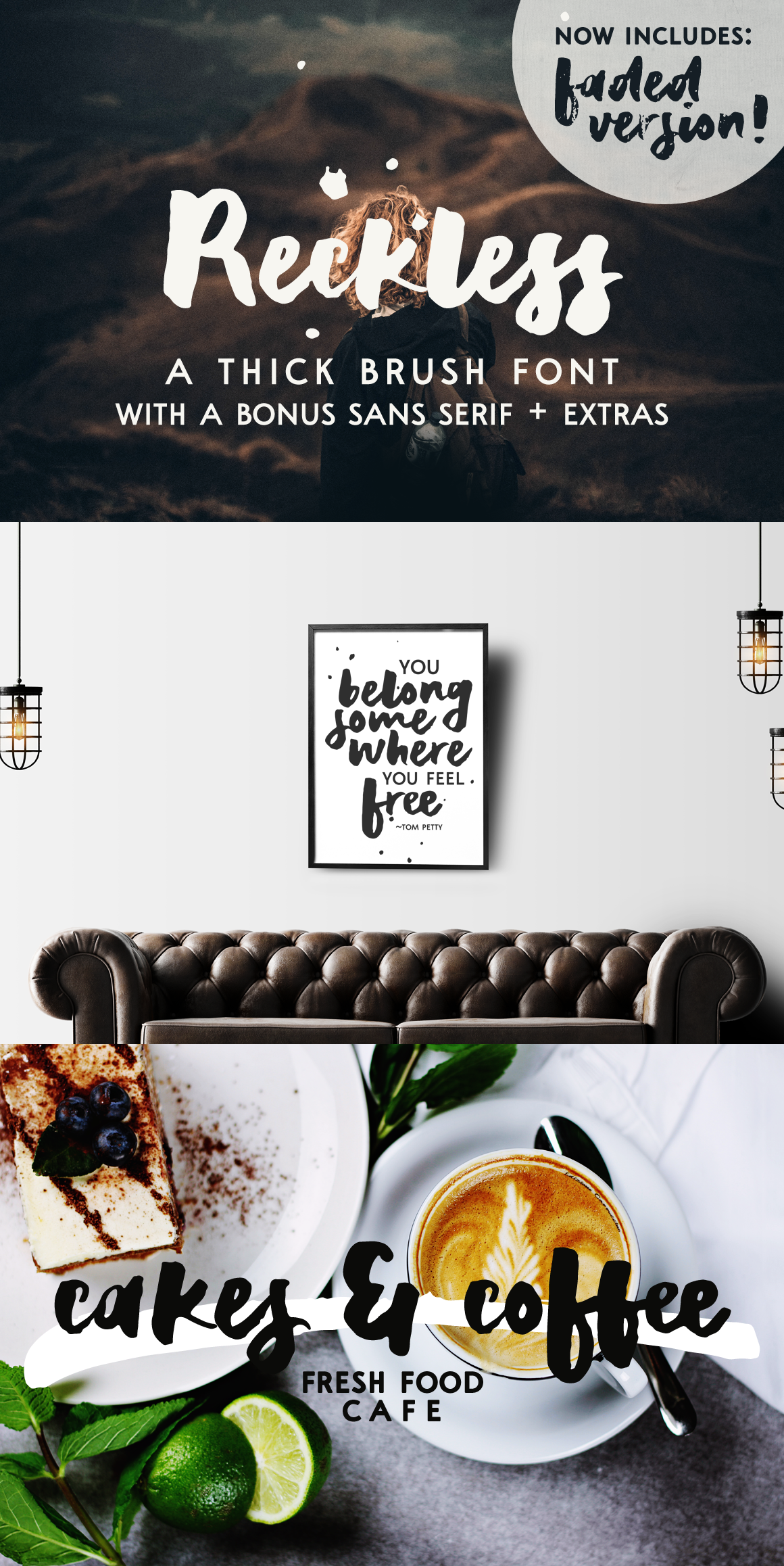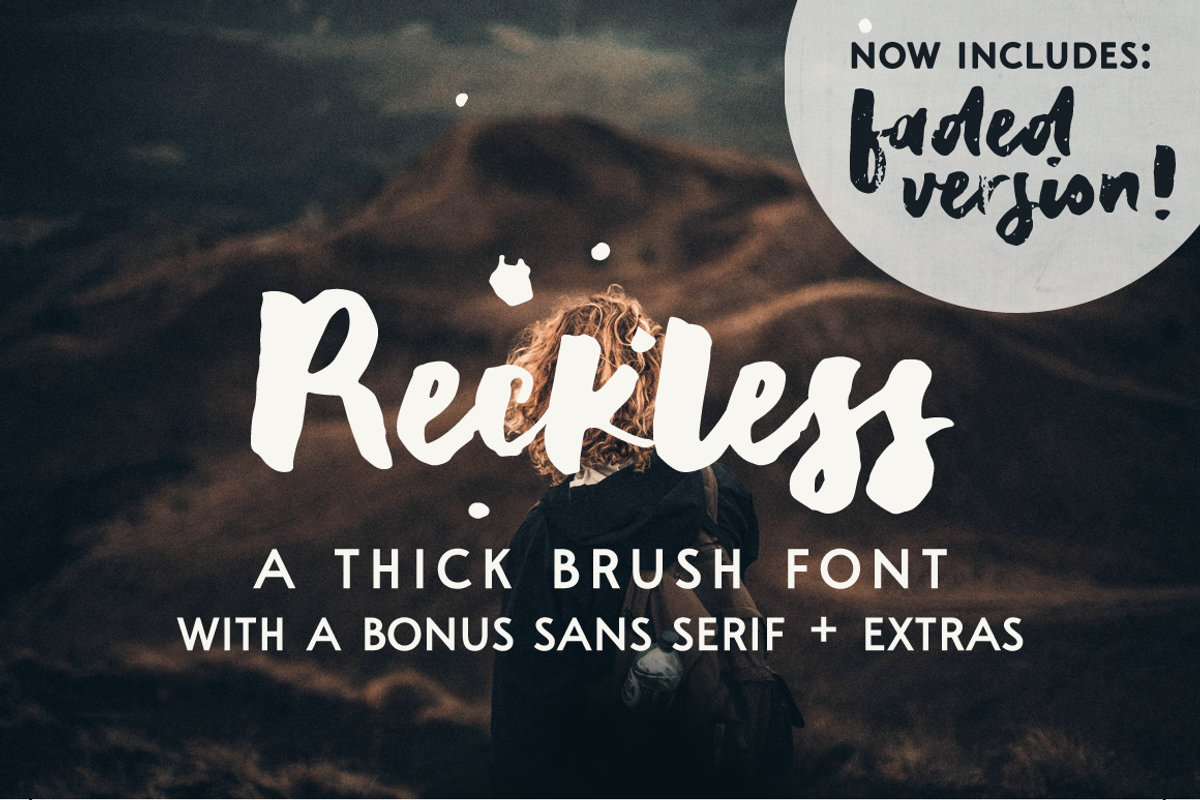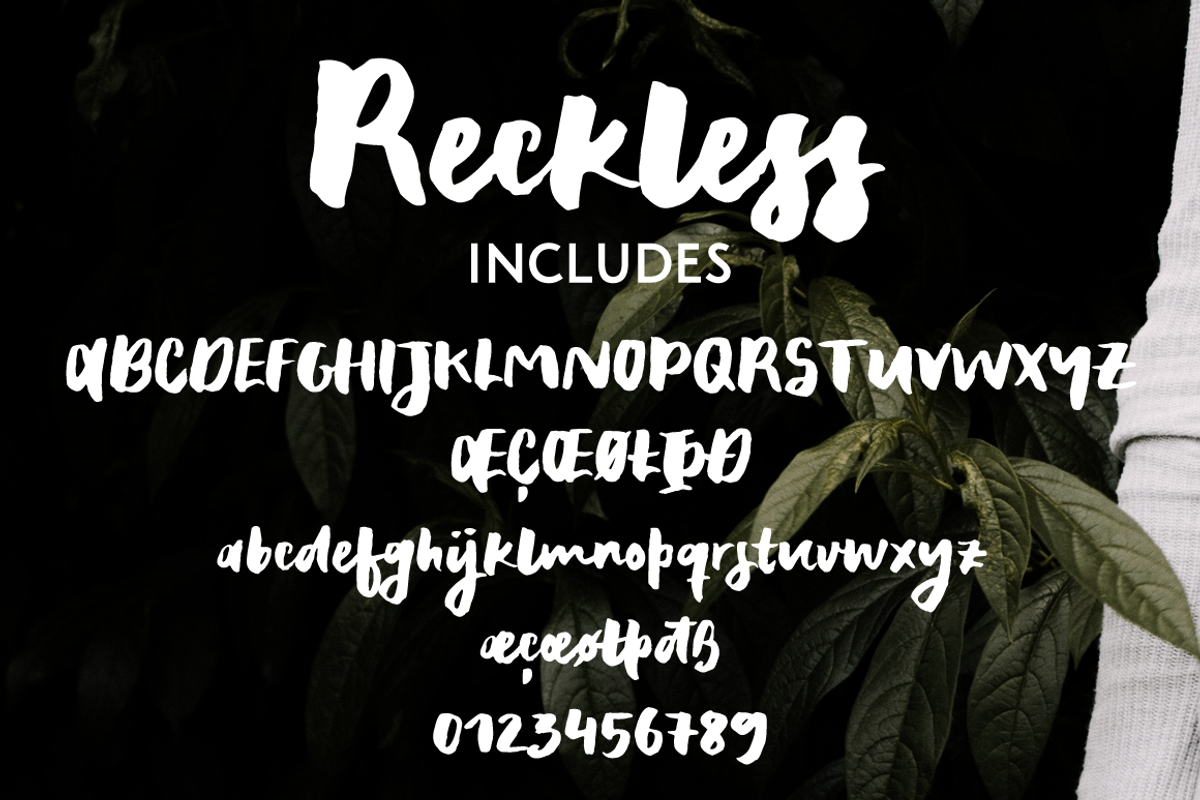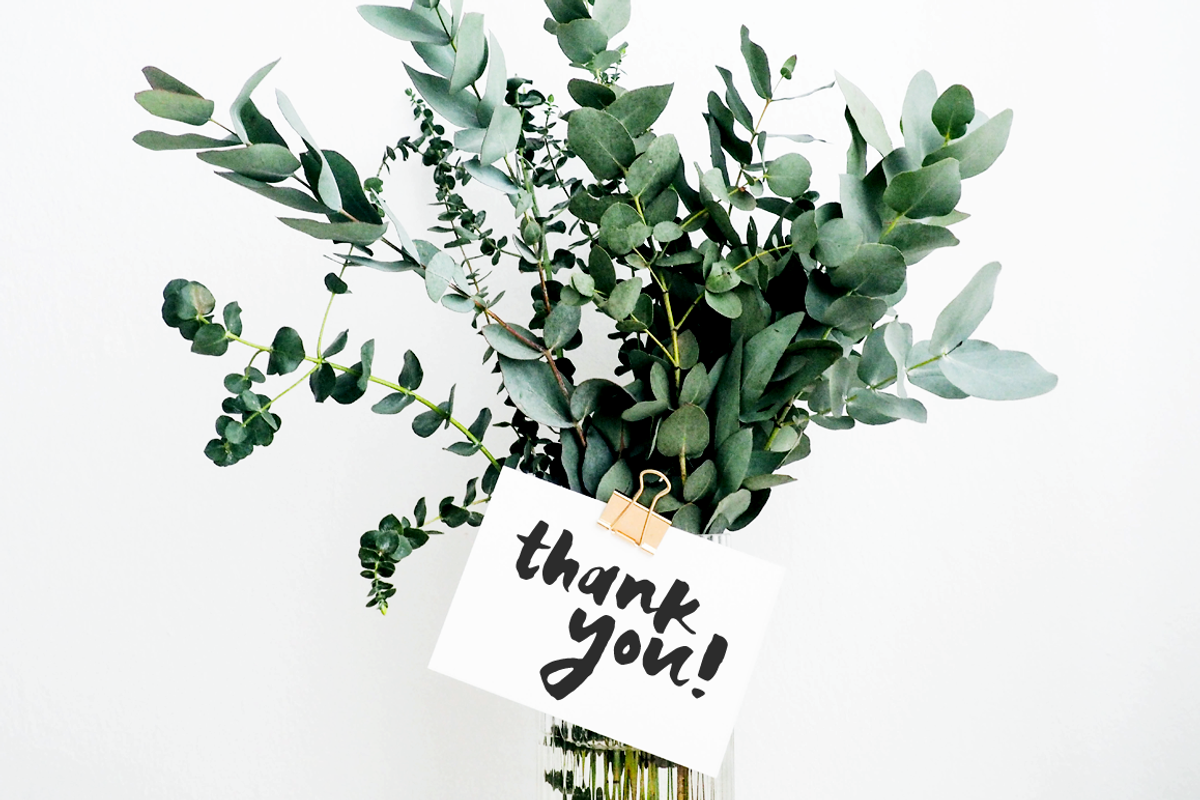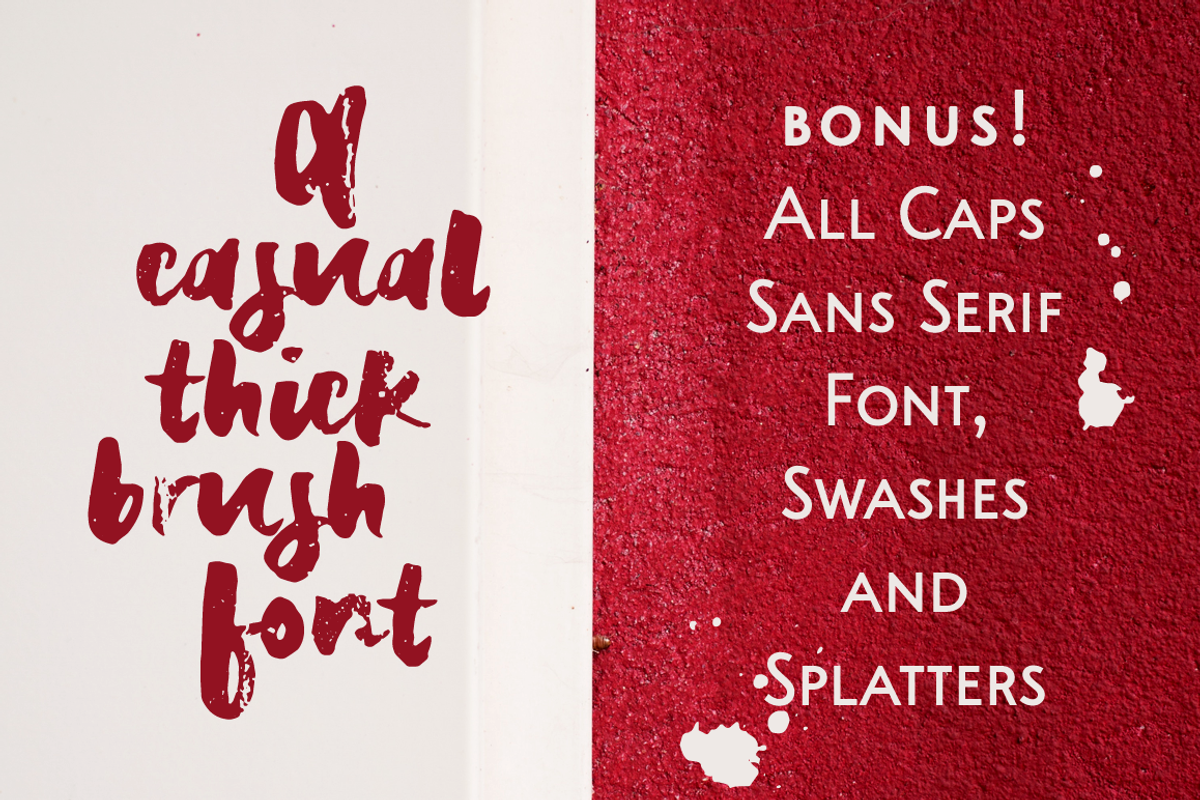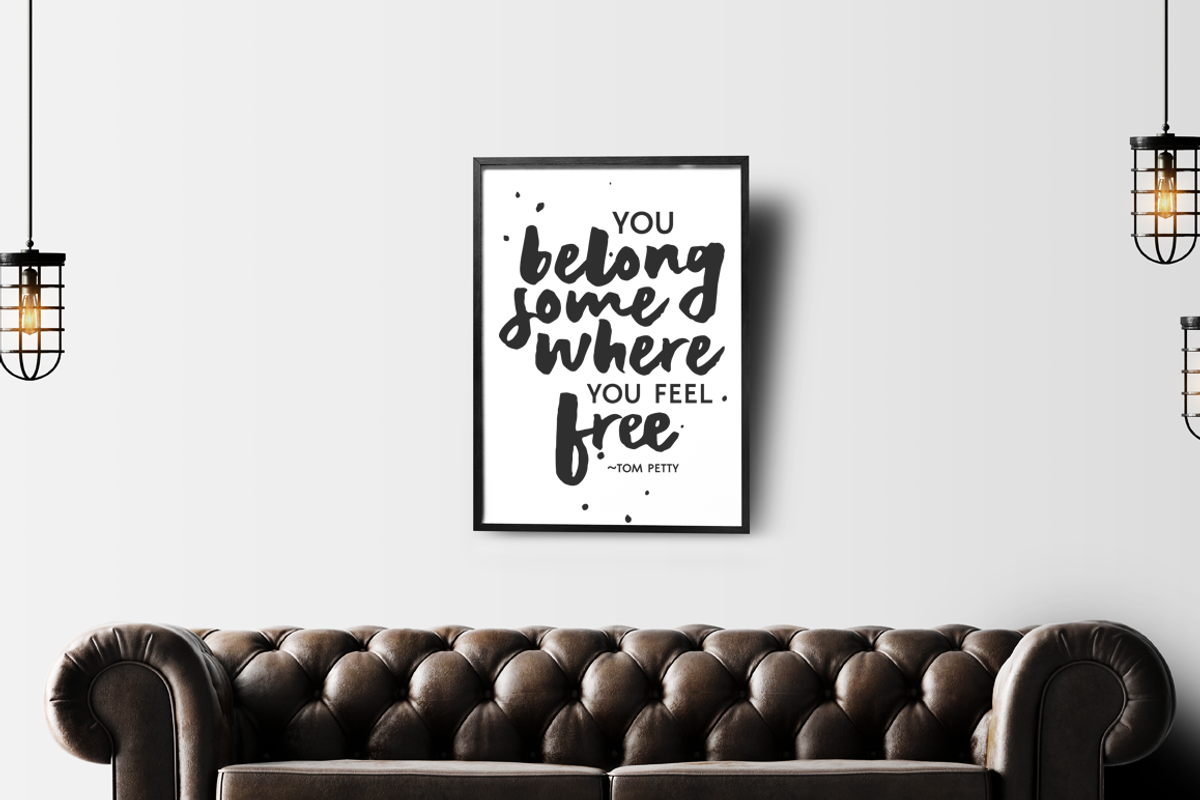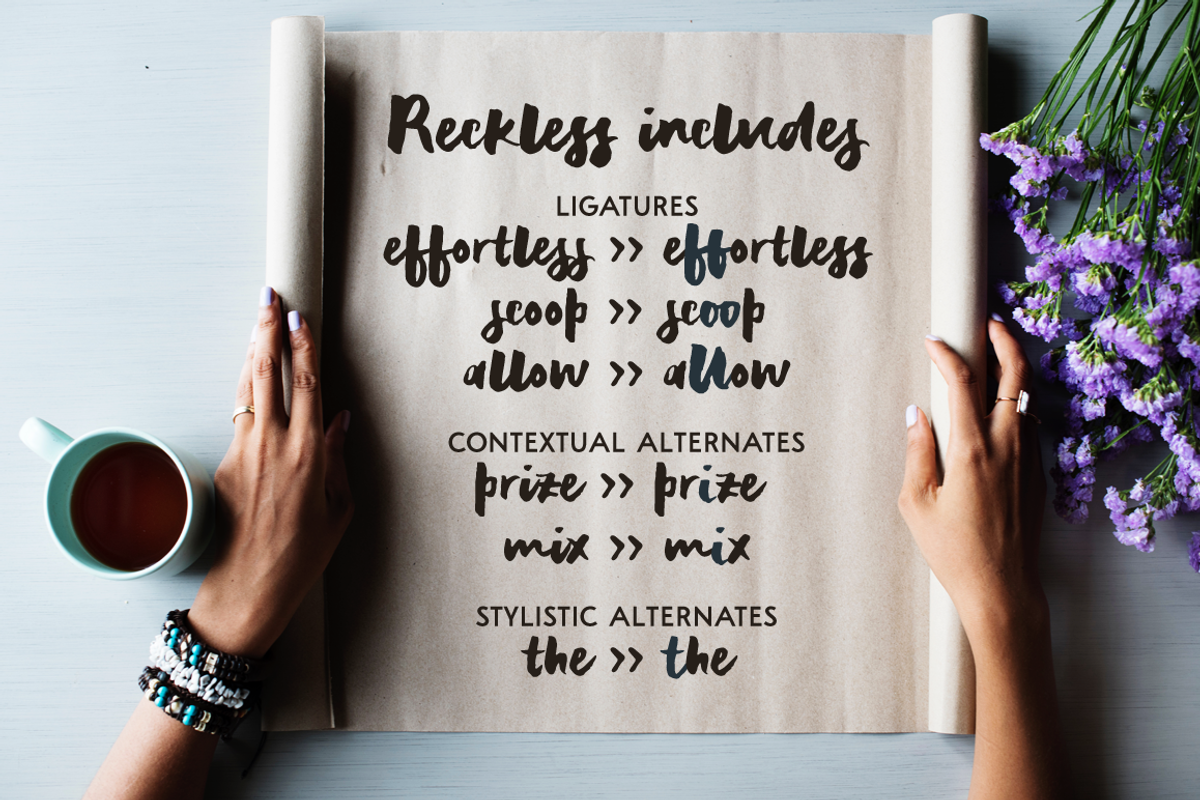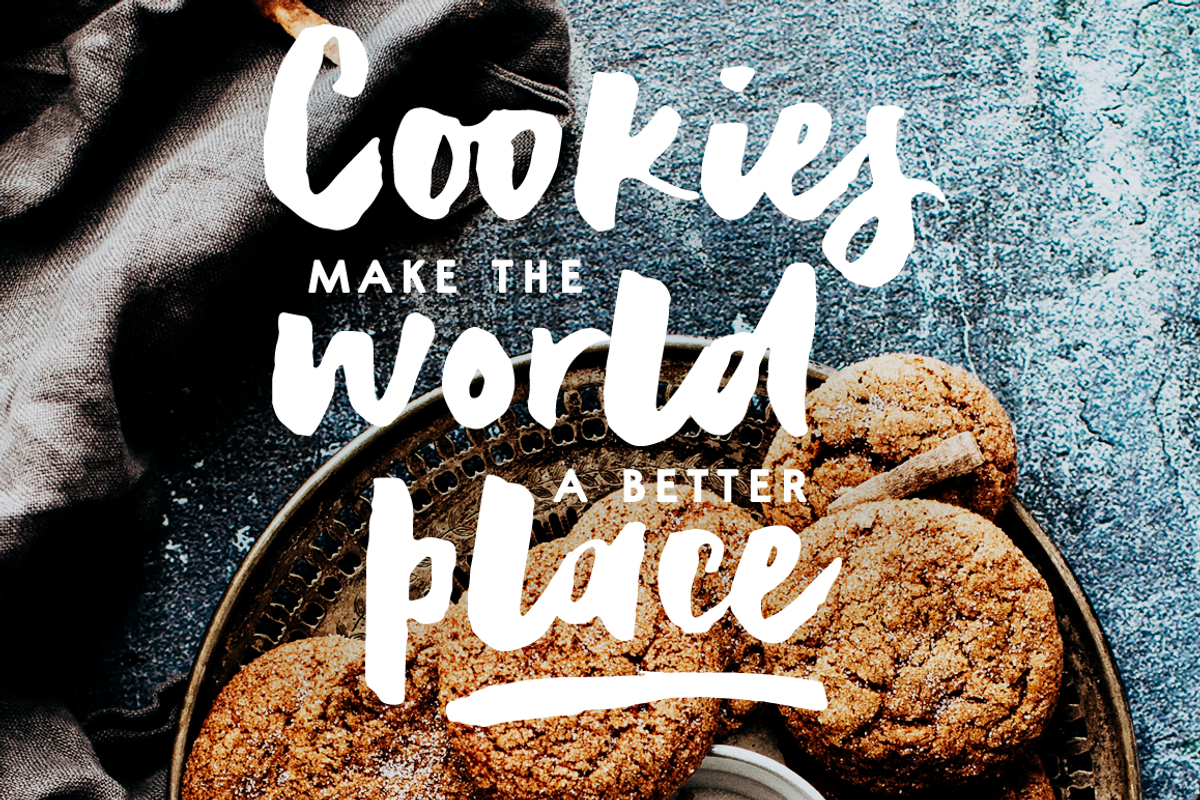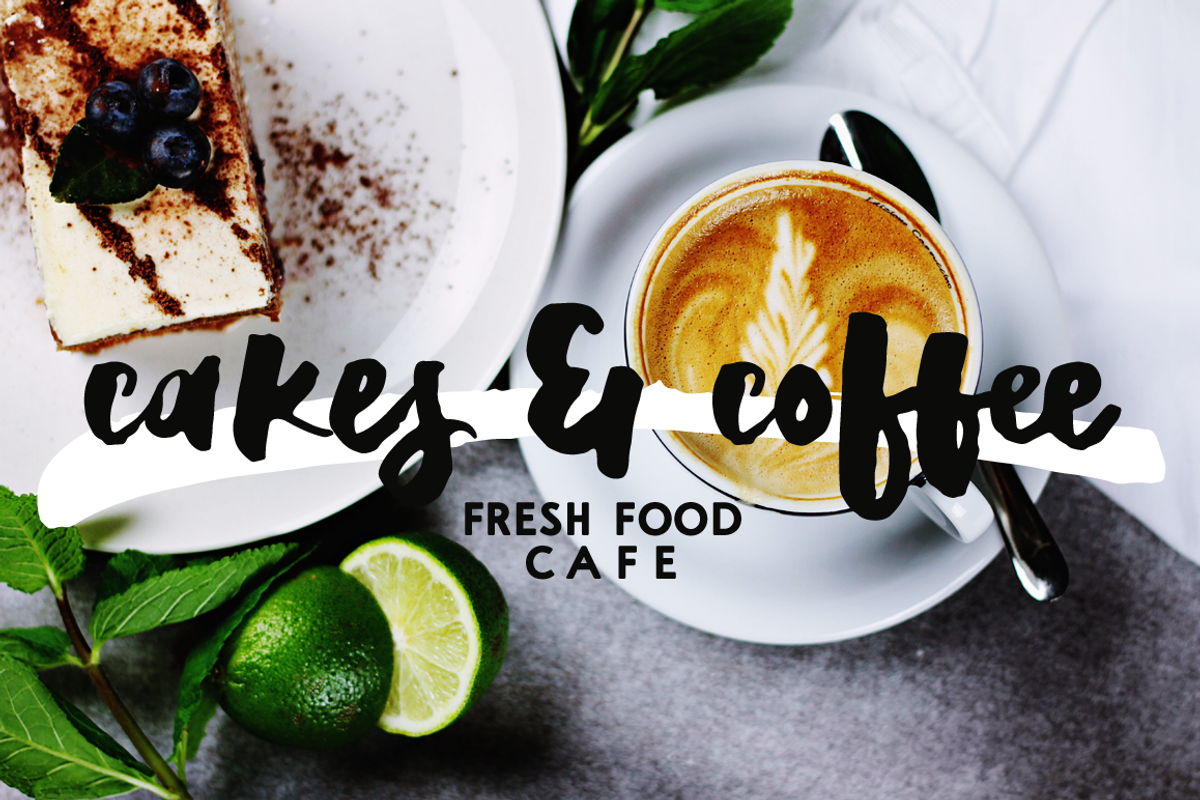
Reckless is a thick brush font with rough edges. It's perfect to make a statement and will look great in quotes, logos, titles, postcards, tags.
This handlettered font includes:
The sans serif font is the small caps version of my font A Pompadour in both regular and bold. You can find the full font here: https://crmrkt.com/GJd4az